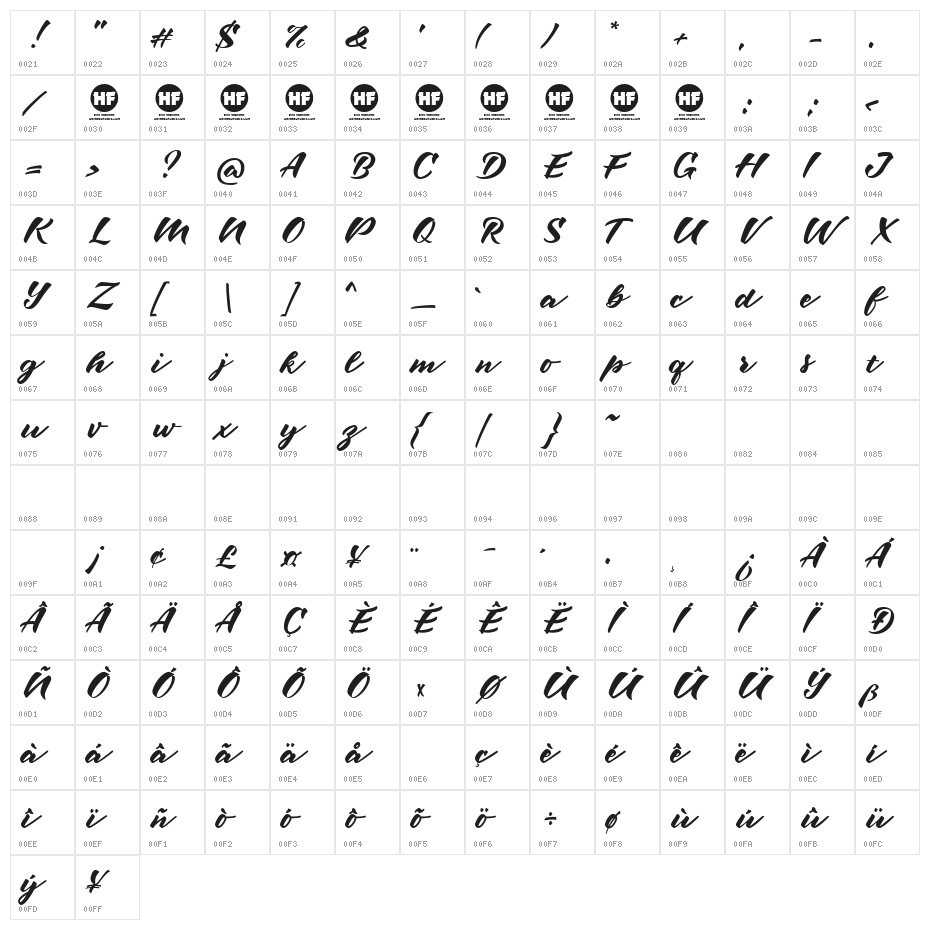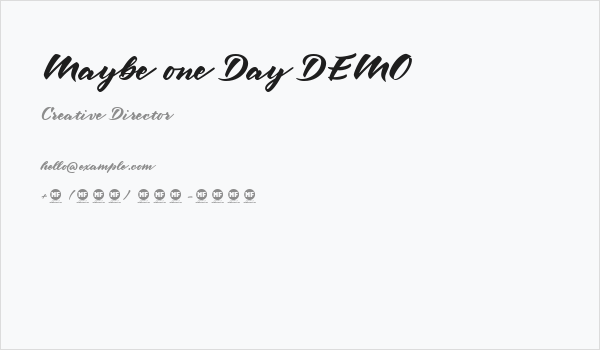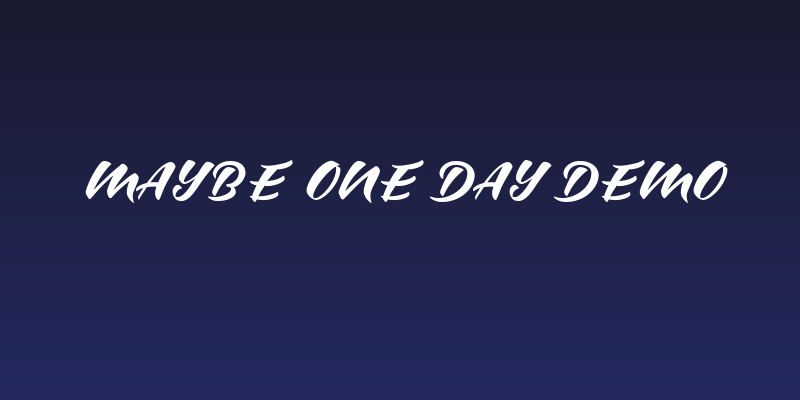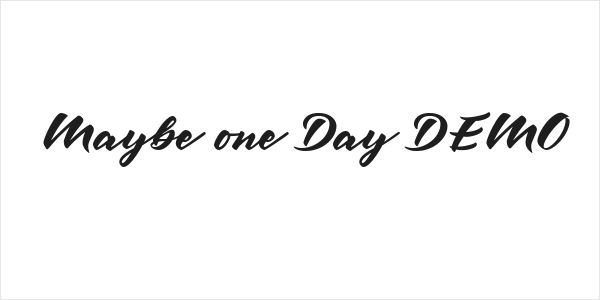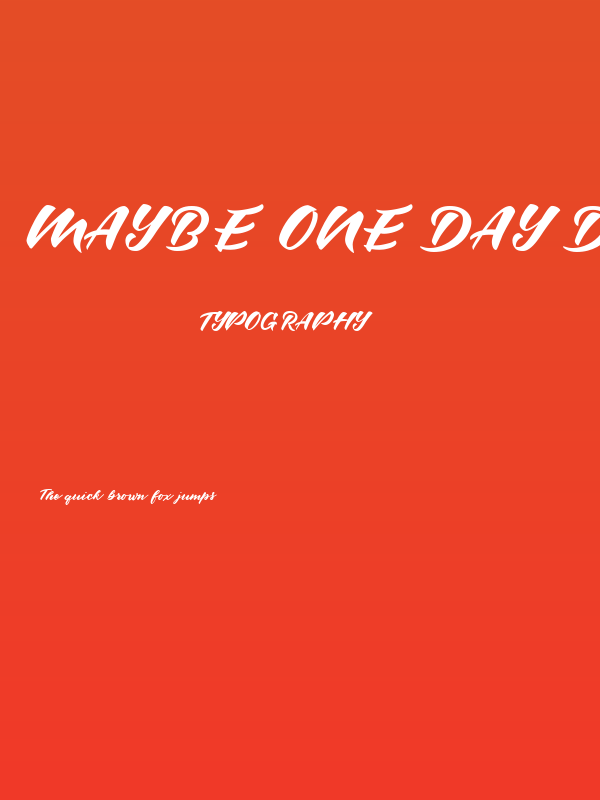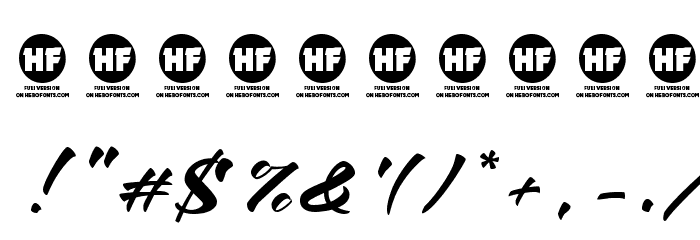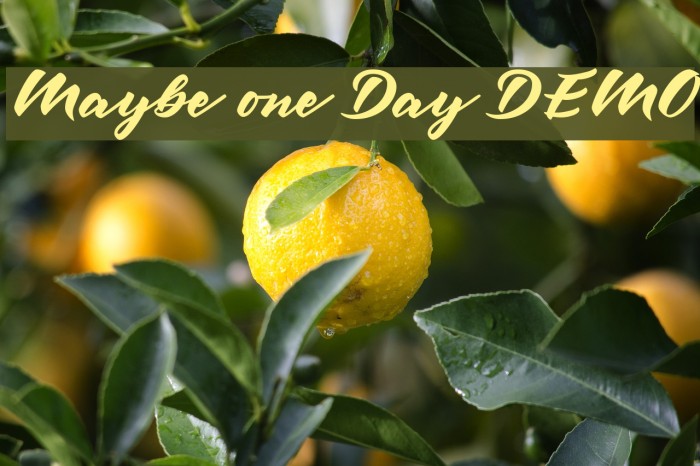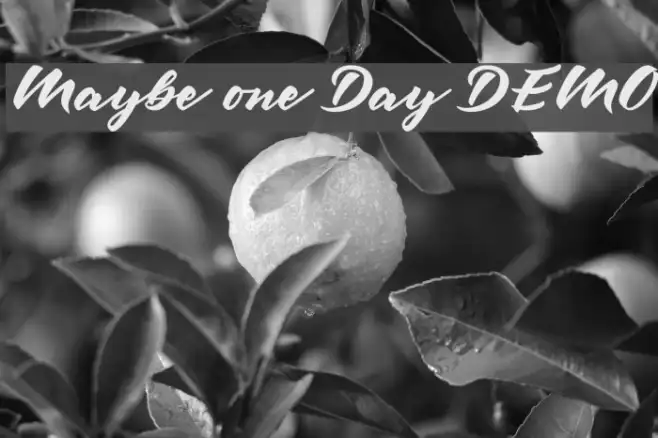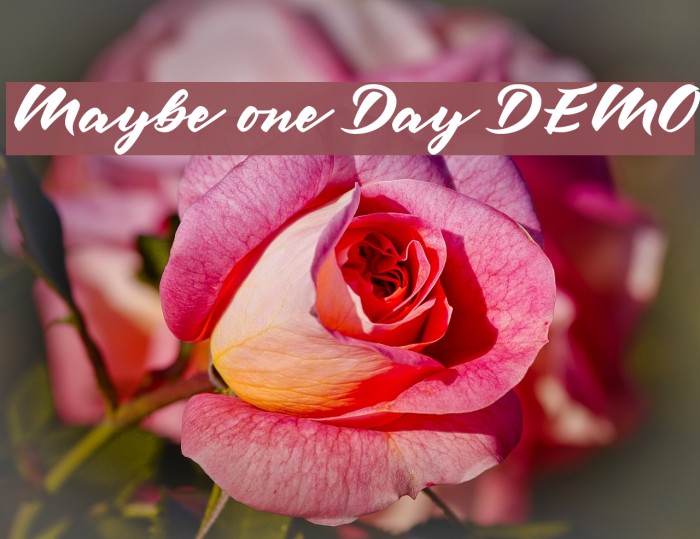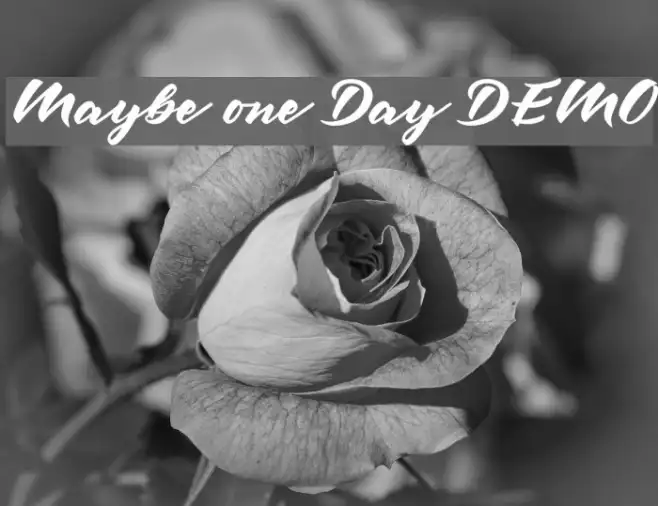
Maybe one Day DEMO Font
Maybe one Day DEMO Description
This font features a bold and expressive script style, characterized by its fluid and dynamic strokes. The uppercase letters are elegantly crafted with a slight slant, giving them a sense of movement and grace. The lowercase letters maintain a consistent flow, enhancing readability while retaining a stylish appearance. The numerals and special characters are designed to complement the overall aesthetic, with a cohesive look that ties the entire set together. The font's boldness adds a striking presence, making it suitable for various creative applications.